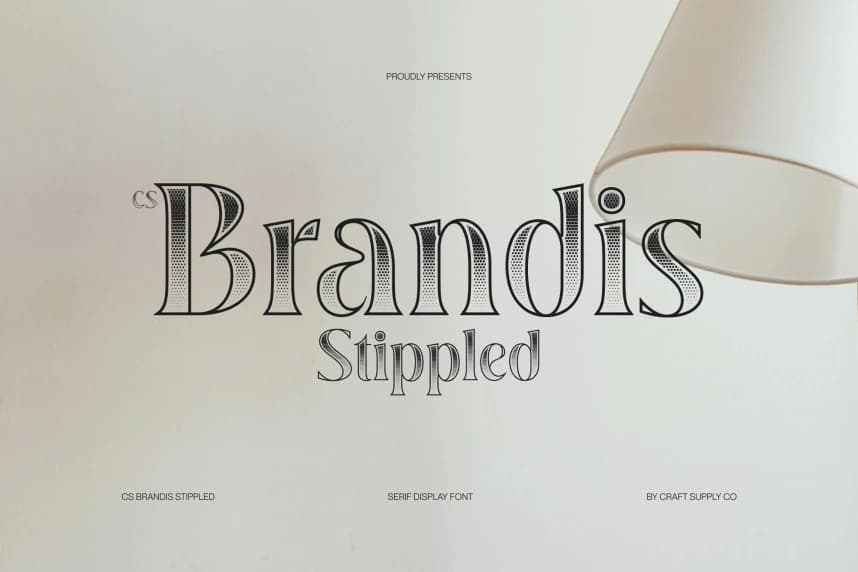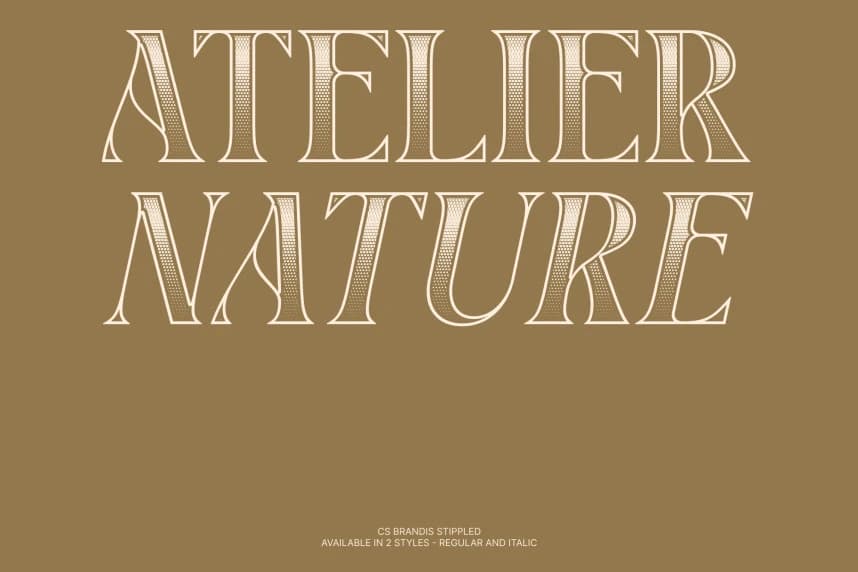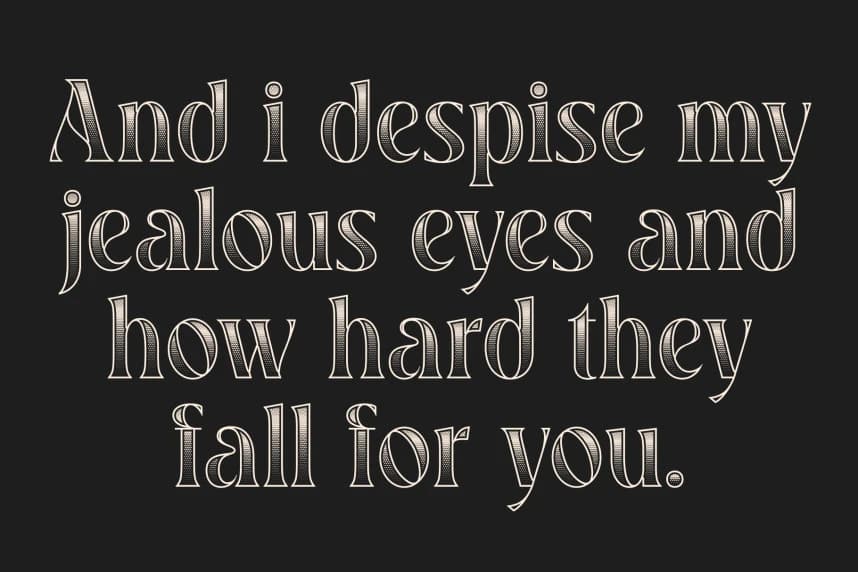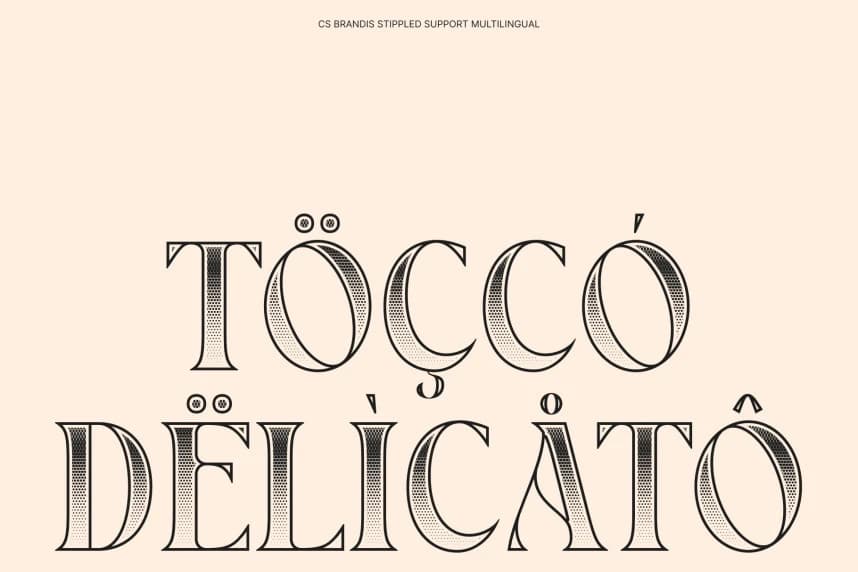
CS Brandis Stippled Font
CS Brandis Stippled Font – Modern Serif with Elegant High-Contrast Character Modern Serif with Timeless Elegance and Stippled Texture. This is a modern serif font designed to express elegance through timeless proportions and contemporary refinement